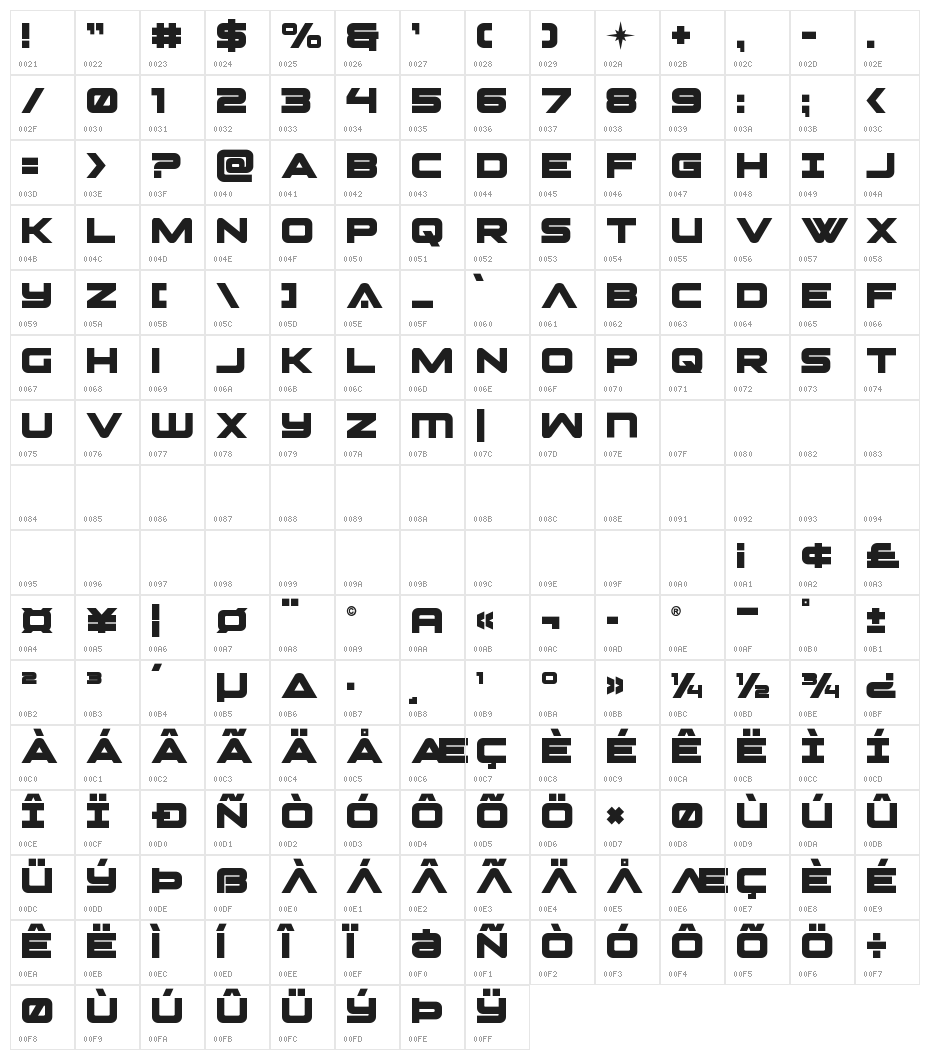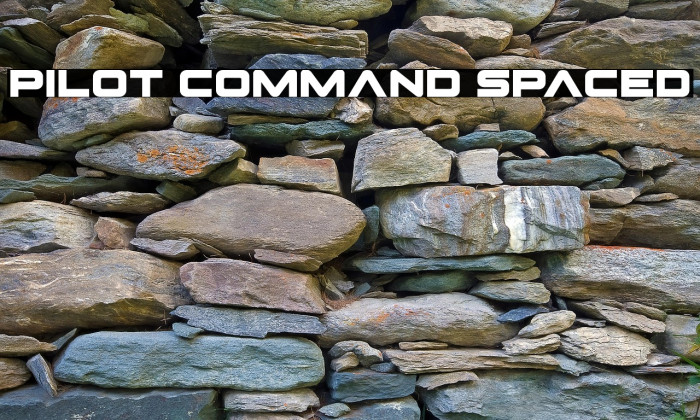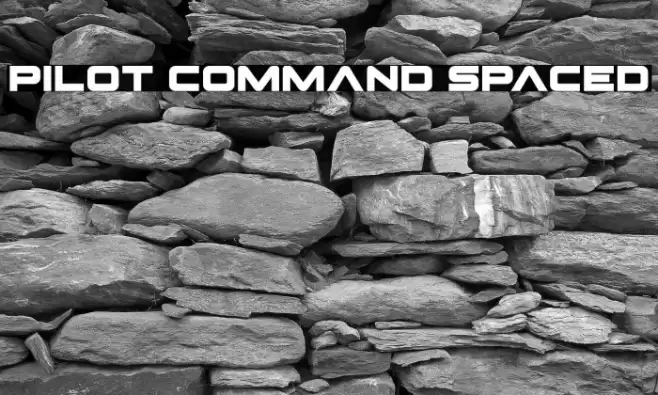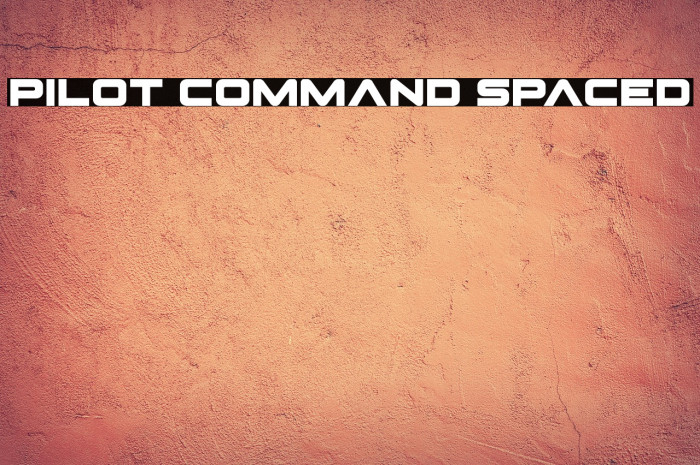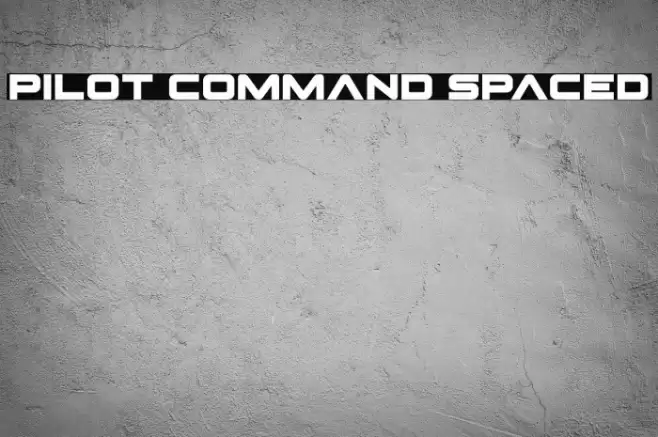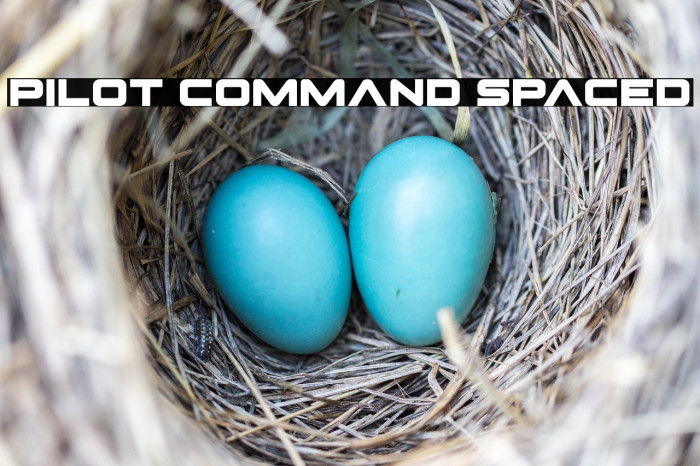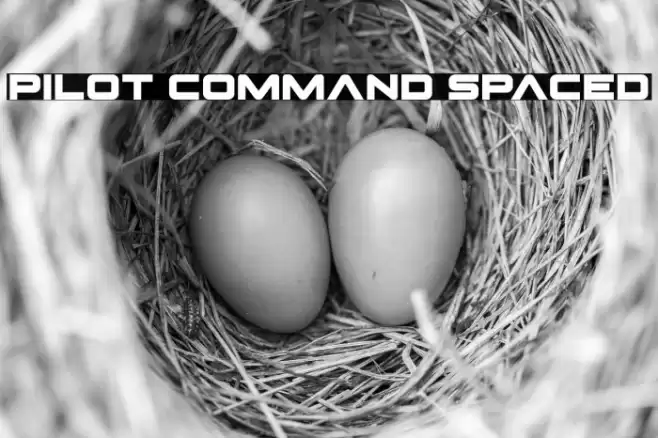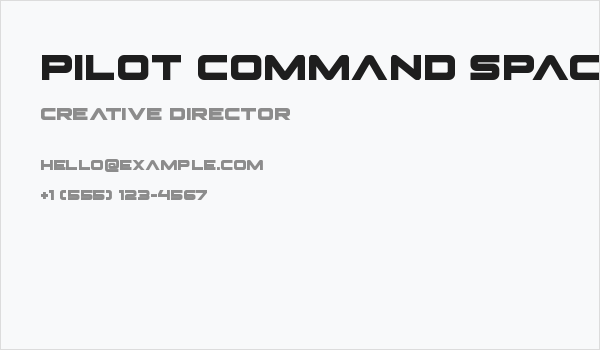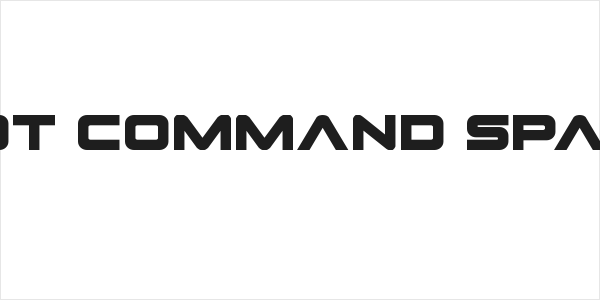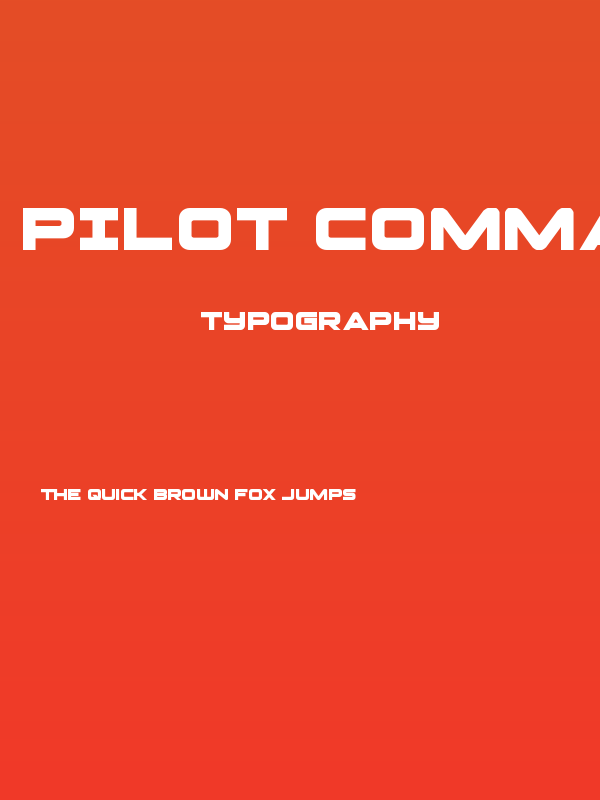
Pilot Command Spaced Font
Pilot Command Spaced Description
This font exhibits a bold, futuristic style with a strong geometric influence. The characters are uniformly wide, featuring sharp angles and clean lines that convey a sense of modernity and precision. The uppercase letters are particularly striking, with a consistent height and width that create a cohesive appearance. The lowercase letters maintain the same boldness, ensuring readability while retaining the font's distinctive style. Numerals are equally bold and geometric, fitting seamlessly with the overall design. Special characters are designed with the same attention to detail, enhancing the font's versatility. This font is ideal for projects that require a modern, impactful look.